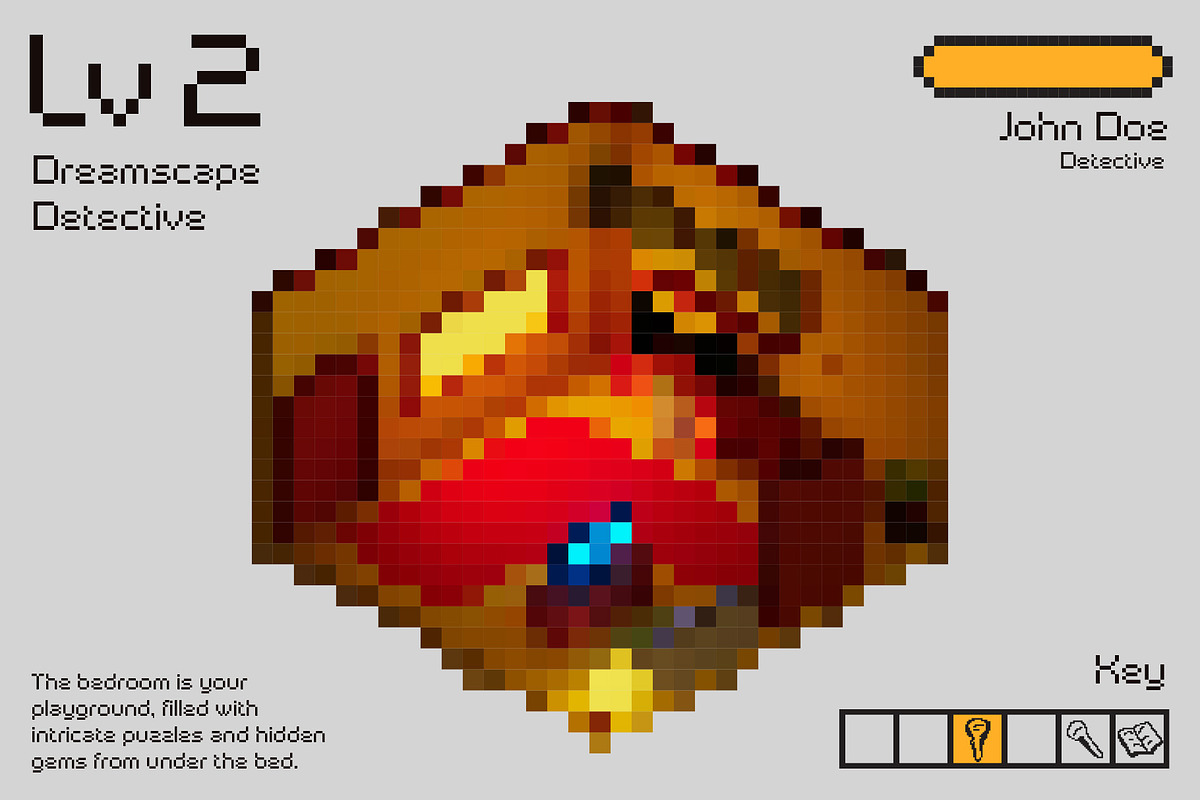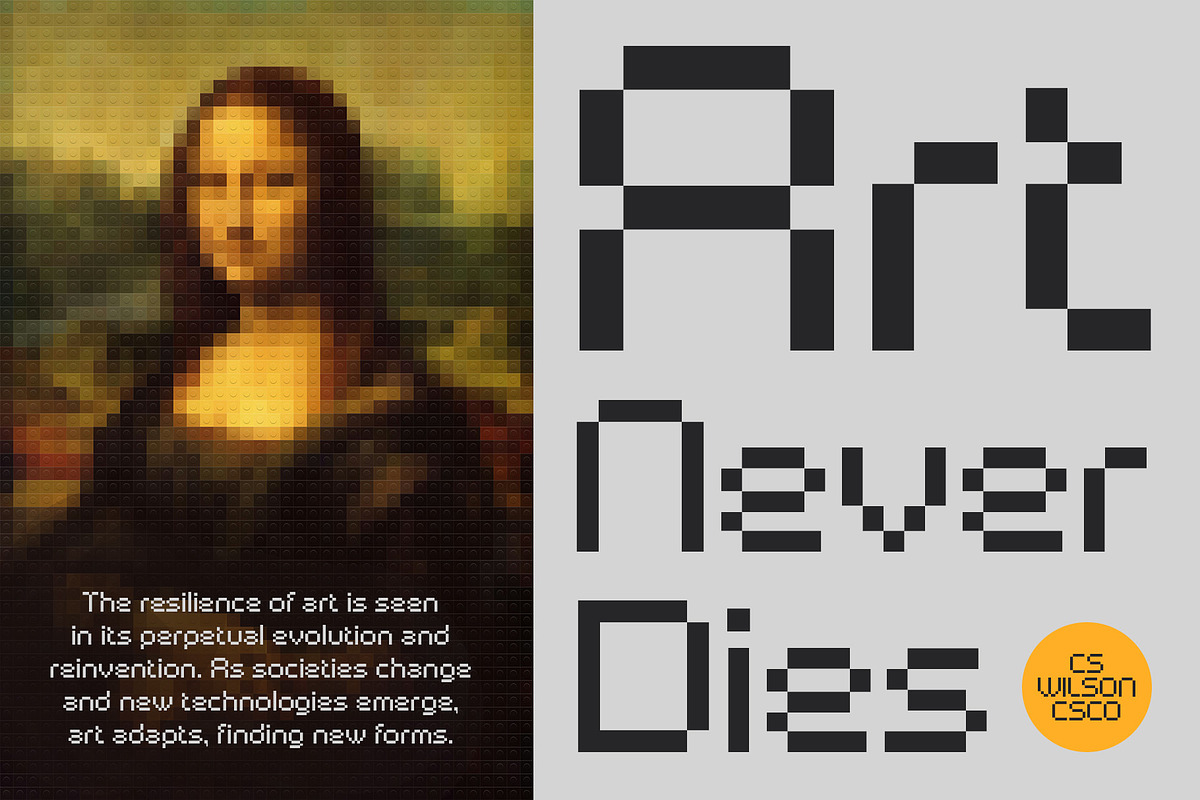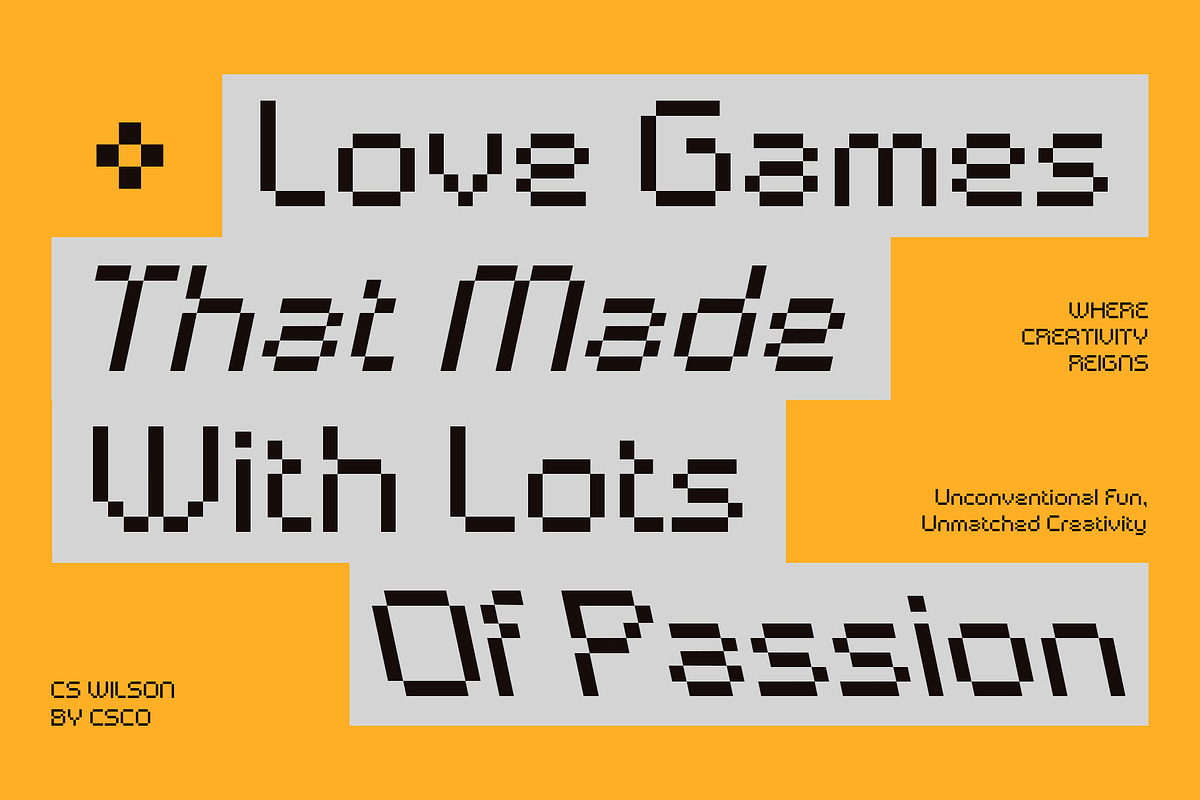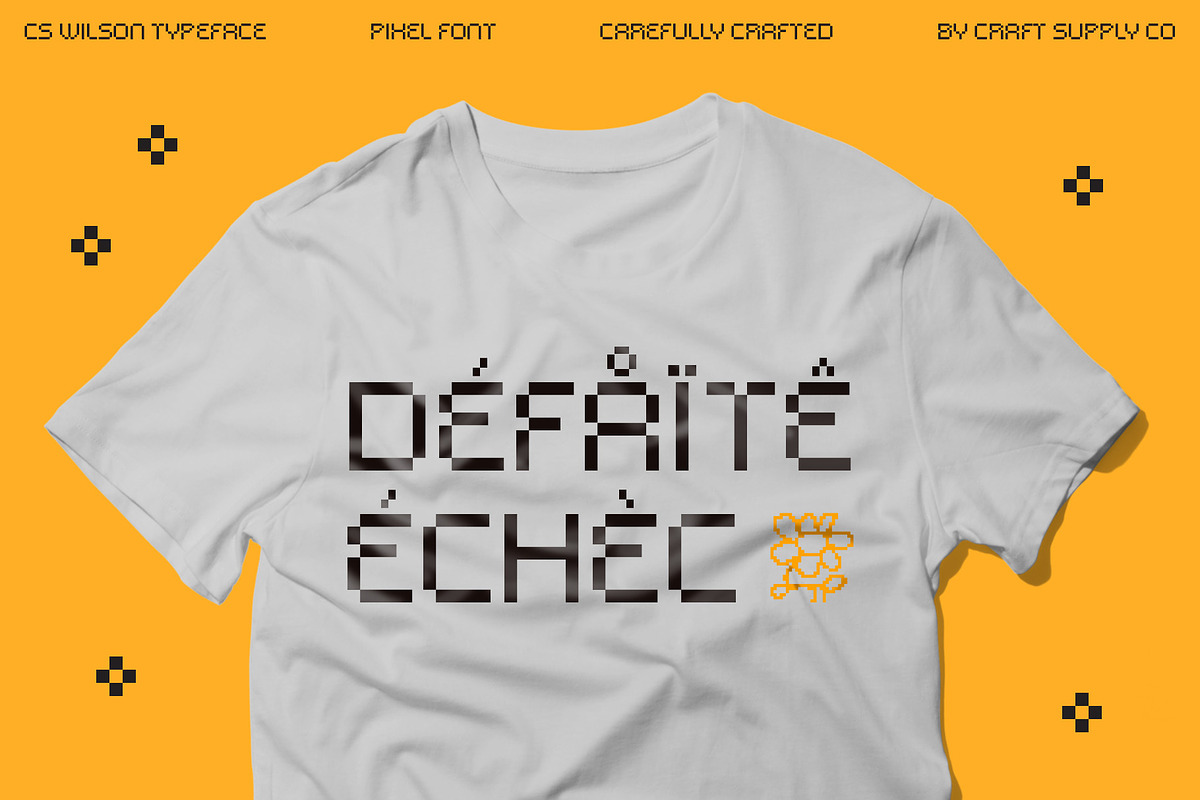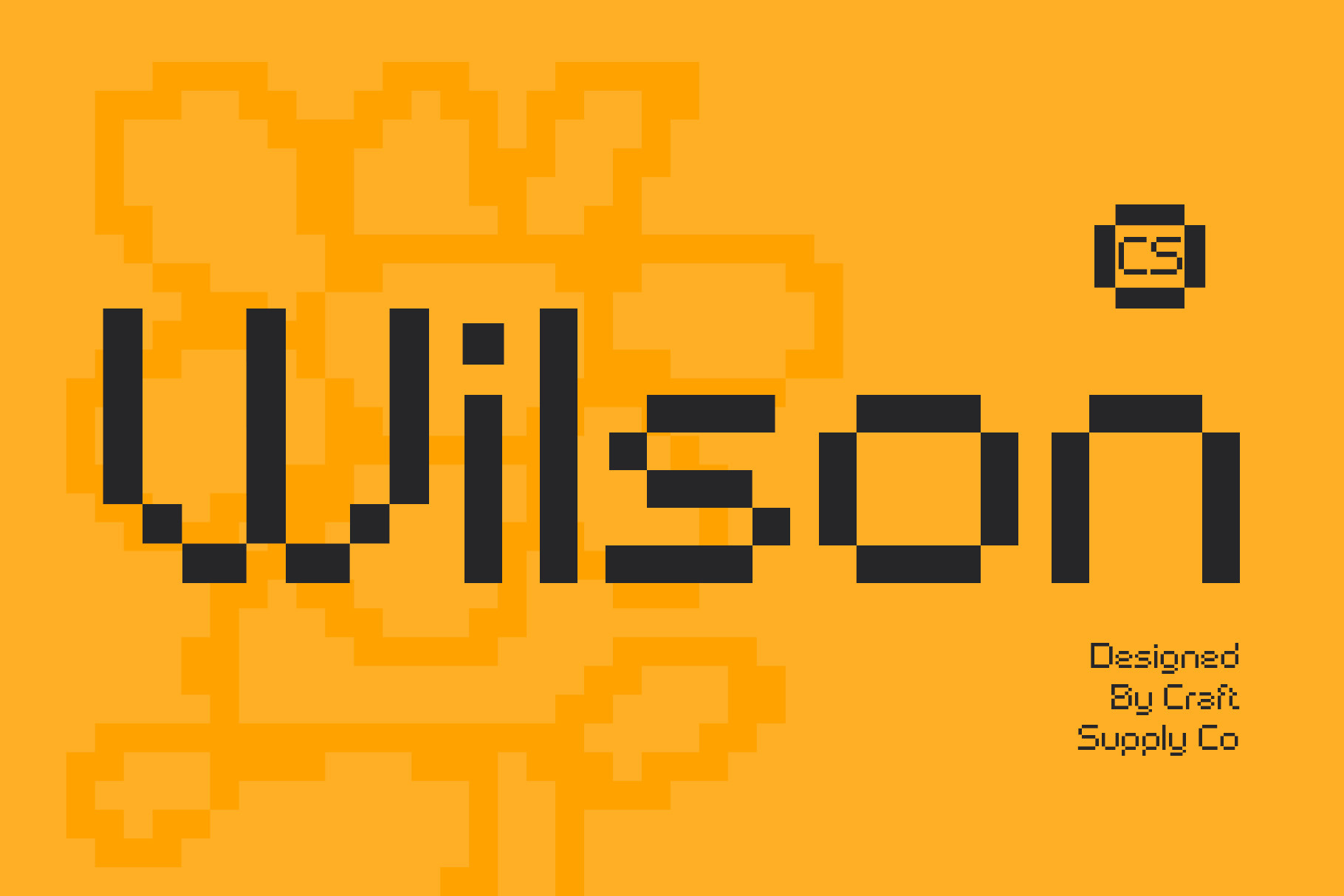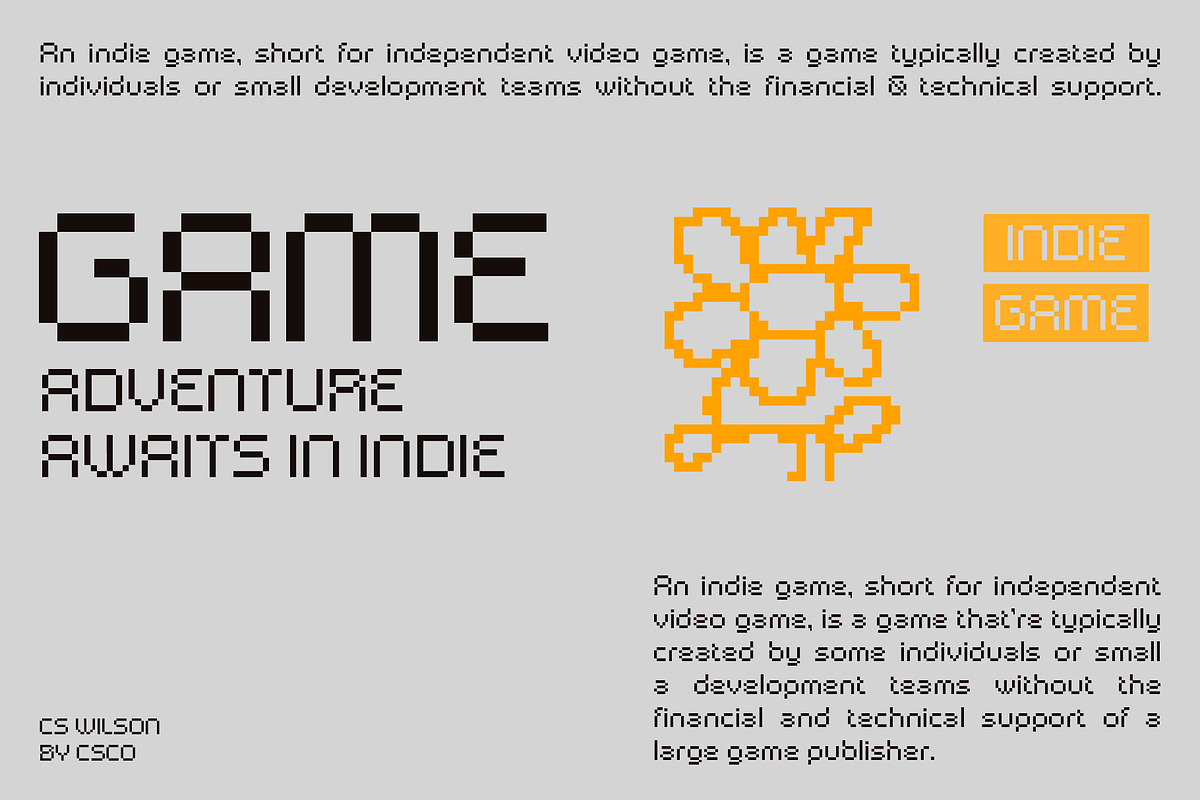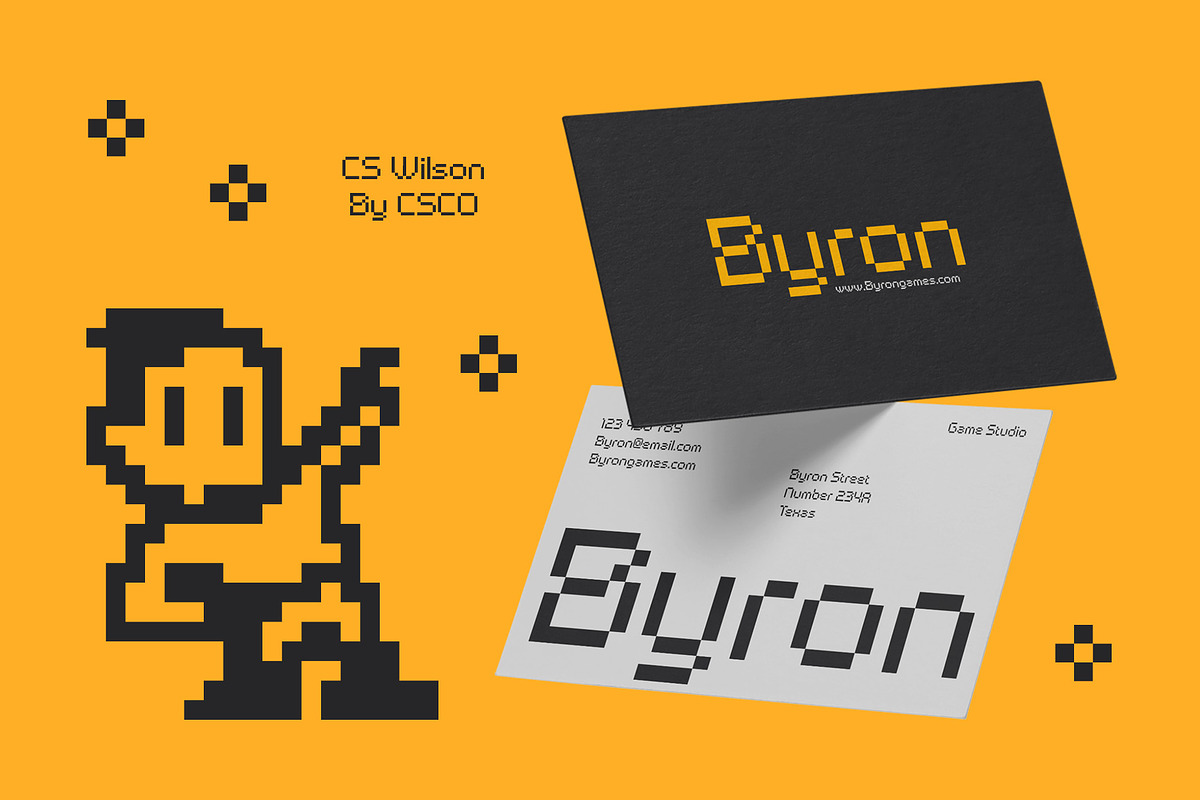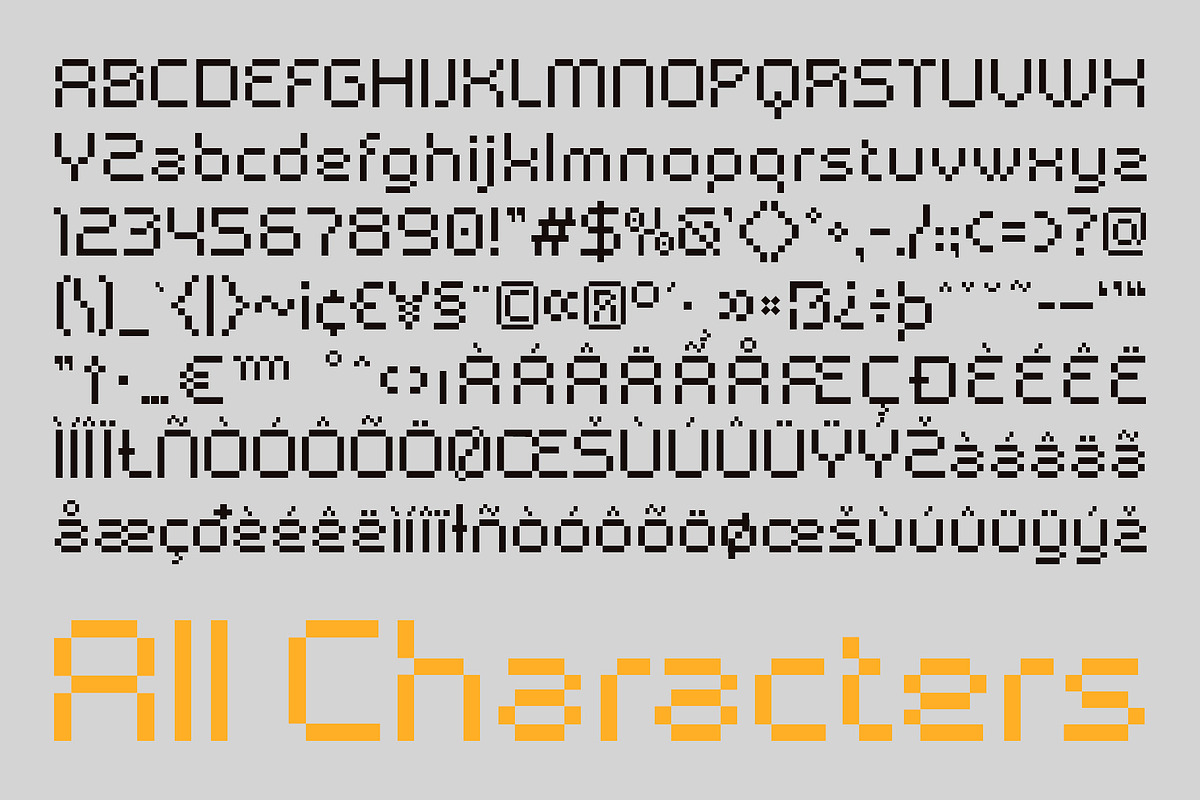
CS Wilson – Pixel Craft Font
CS Wilson: Pixel Craft Font
Embrace Retro Charm with Pixel Craft Design
Discover CS Wilson, a pixel craft display font that captures a funky, retro vibe reminiscent of early computer and console games. With its pixelated design, this font embodies the nostalgic charm of the 8-bit era, ideal for creating vibrant, eye-catching visuals.
Celebrate Classic Digital Gaming
CS Wilson’s pixelated style evokes memories of classic digital graphics, making it perfect for designs that celebrate the distinctive look of early video games. Whether you’re creating retro-themed graphics, gaming-related content, or nostalgic memorabilia, this font adds a playful and engaging touch.
Bring Retro Graphics to Life
Ideal for projects that aim to showcase the fun and distinct aesthetics of vintage digital art, CS Wilson adds a burst of nostalgia and creativity. Its unique design ensures your visuals stand out with a nostalgic nod to the golden age of gaming.
Enhance Your Designs with CS Wilson
Choose CS Wilson to infuse your projects with the charm and vibrancy of retro digital graphics. This pixel craft font offers a distinctive and memorable style that celebrates the beloved aesthetics of classic gaming.